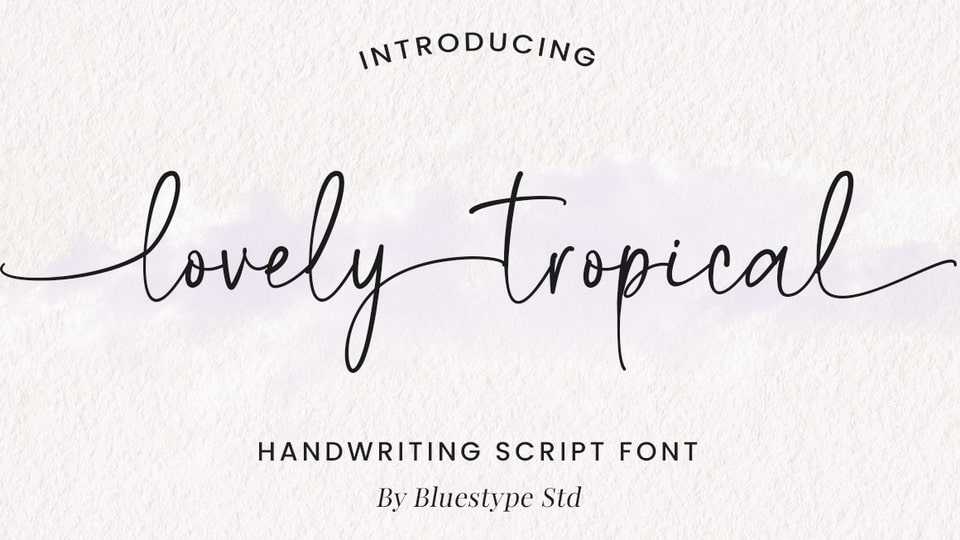
Download Lovely Tropical font, a beautiful handwritten typeface that feels equally charming and elegant. It looks stunning on wedding invitations, quotes, greeting cards, logos, business cards, and every other design which needs a handwritten touch.